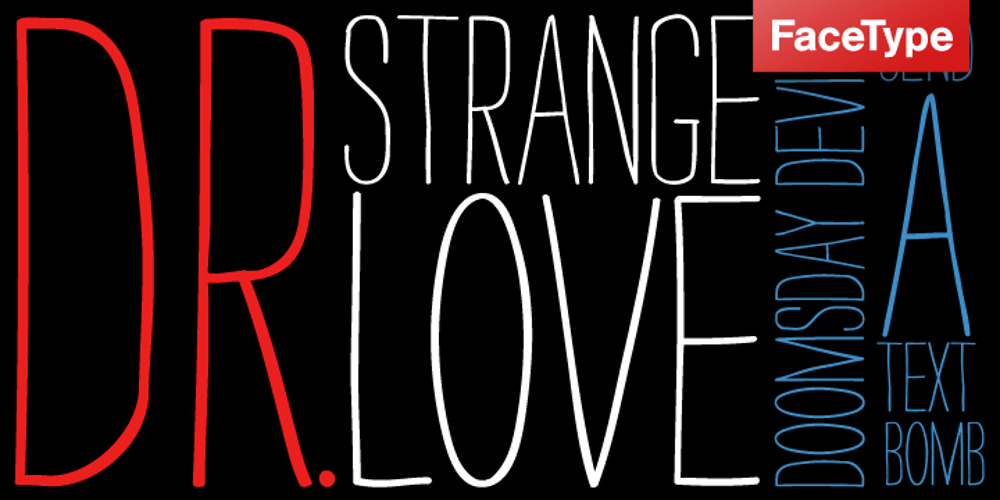
Strangelove Font Family was designed by Marcus Sterz and published by FaceType. Strangelove contains 2 styles and family package options. Strangelove is inspired by the title sequence of Stanley Kubrick’s movie Dr. Strangelove. The original titles were designed by Pablo Ferro, who is one of the most acclaimed film title designers, especially famous for his hand-drawn lettering. With the Bombs also come illustrations referring to scenes from the film. Looking for a serif version? Have a look at Strangelove NextSlab!